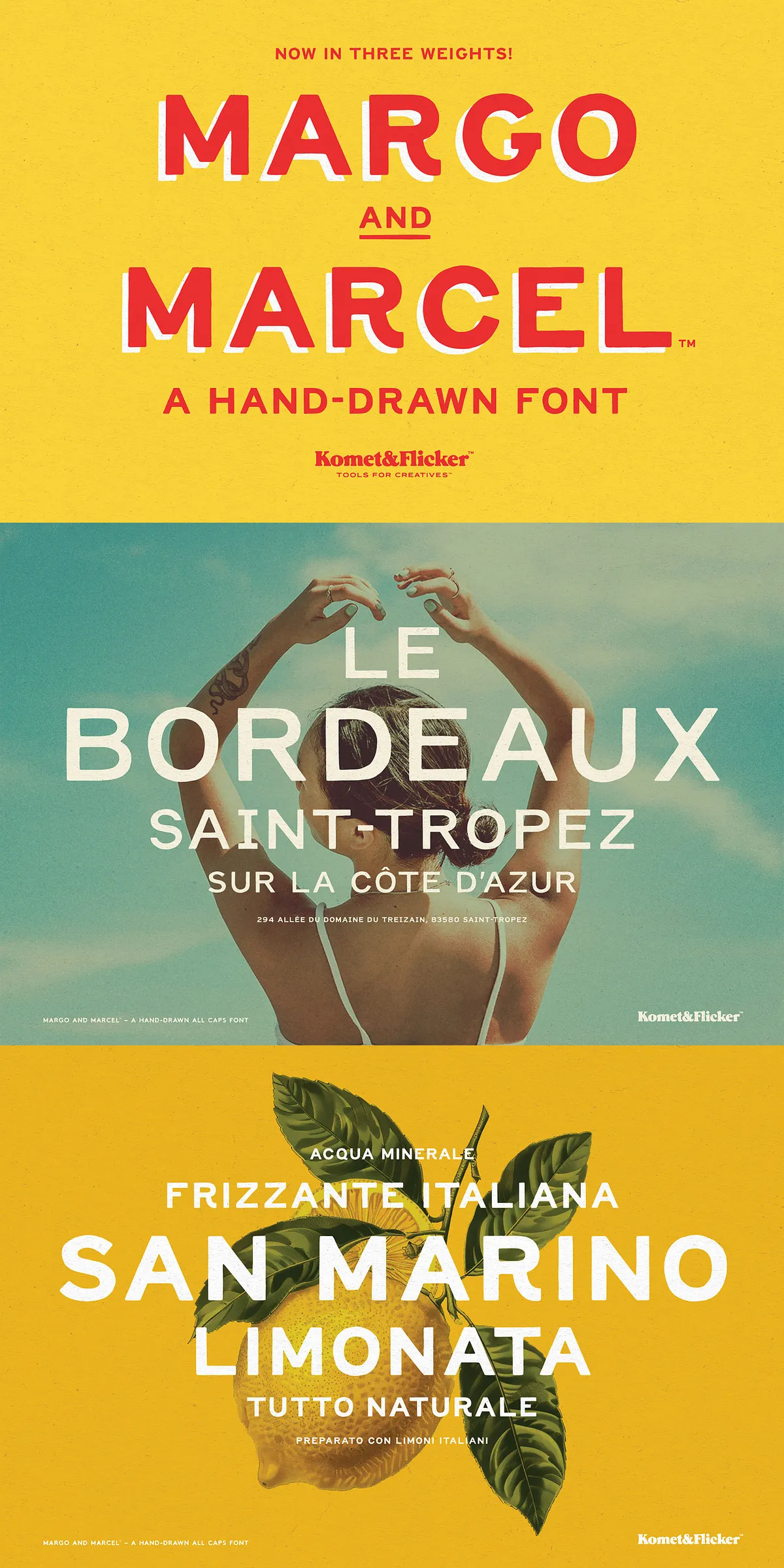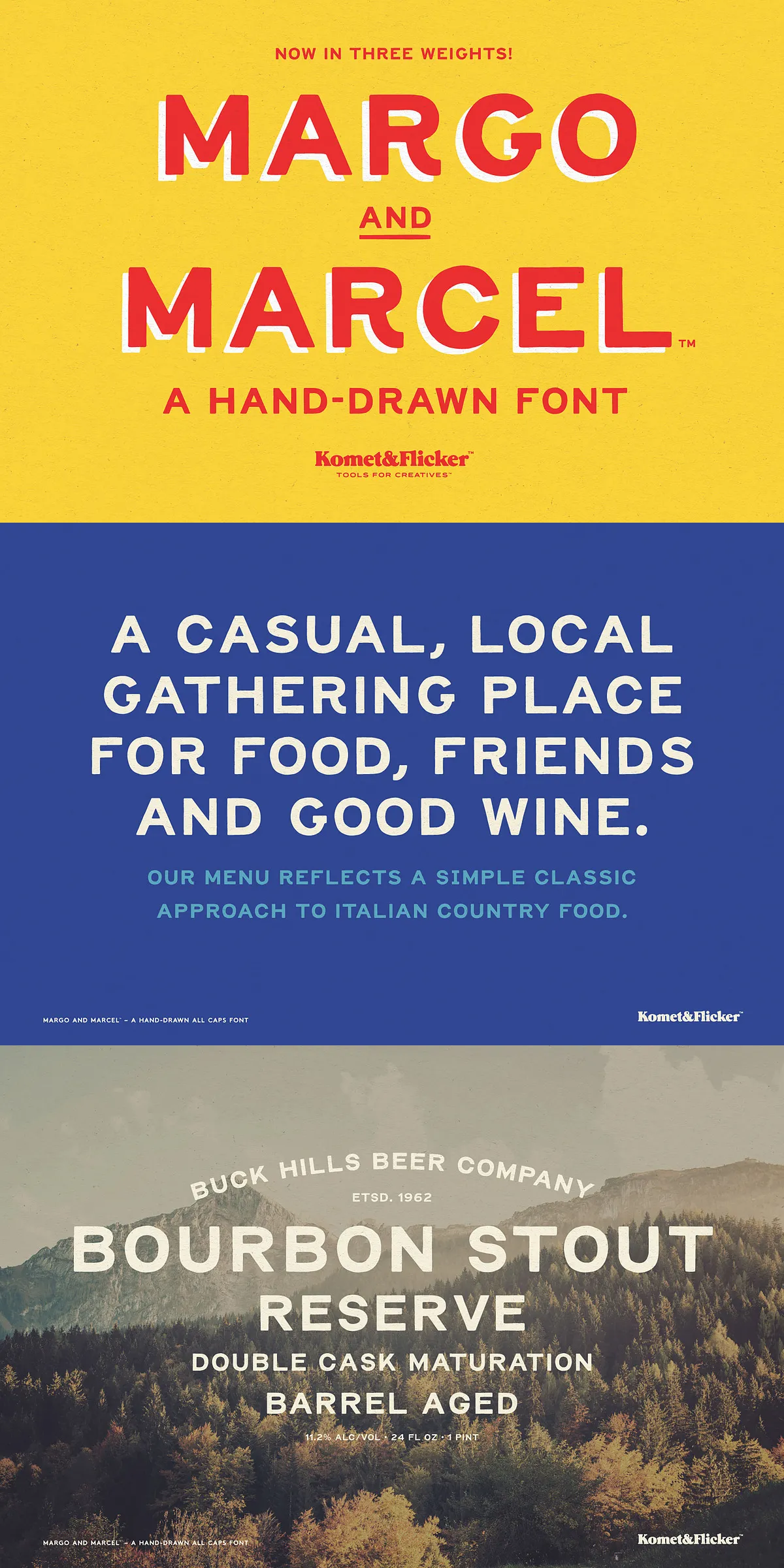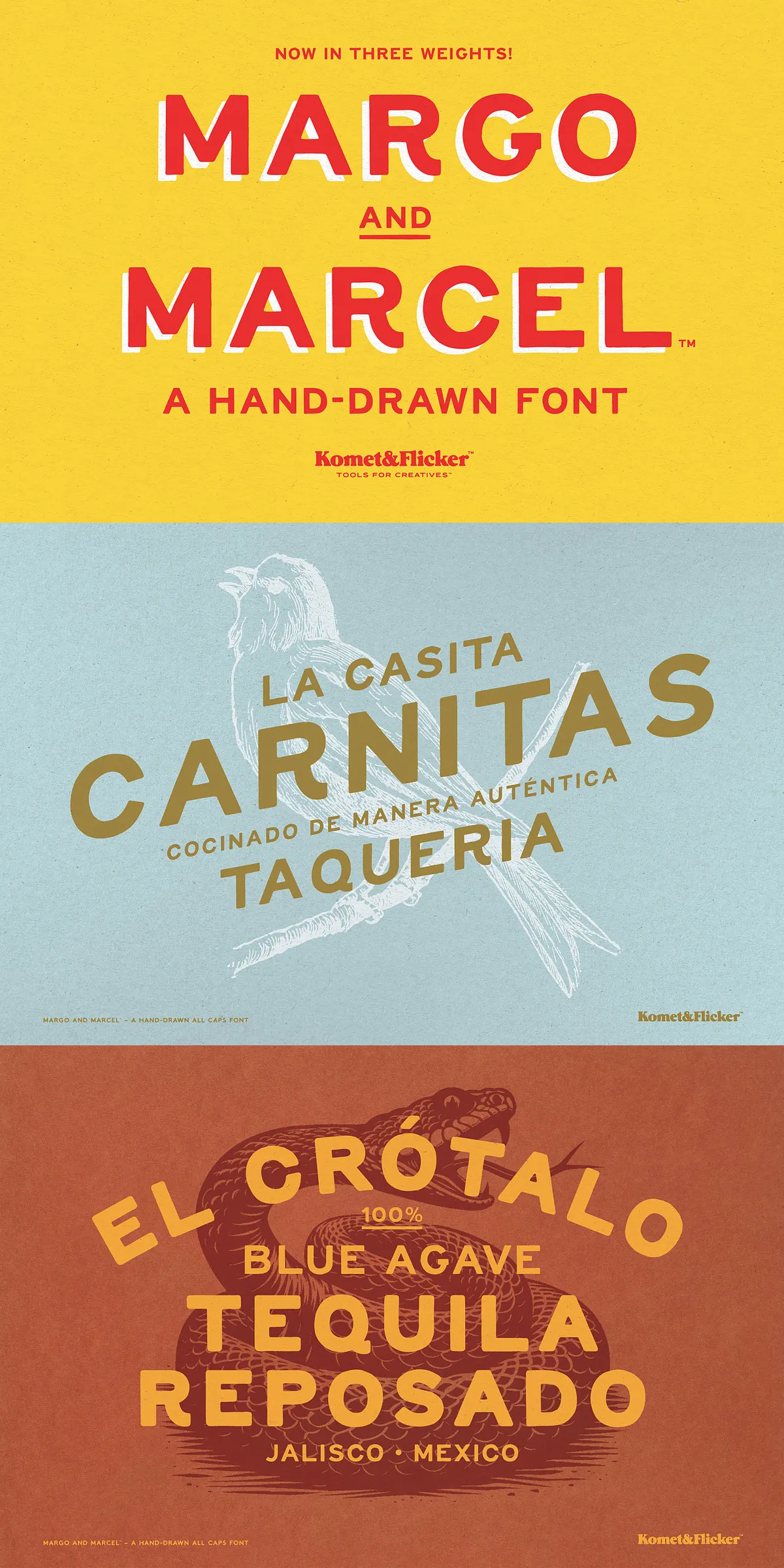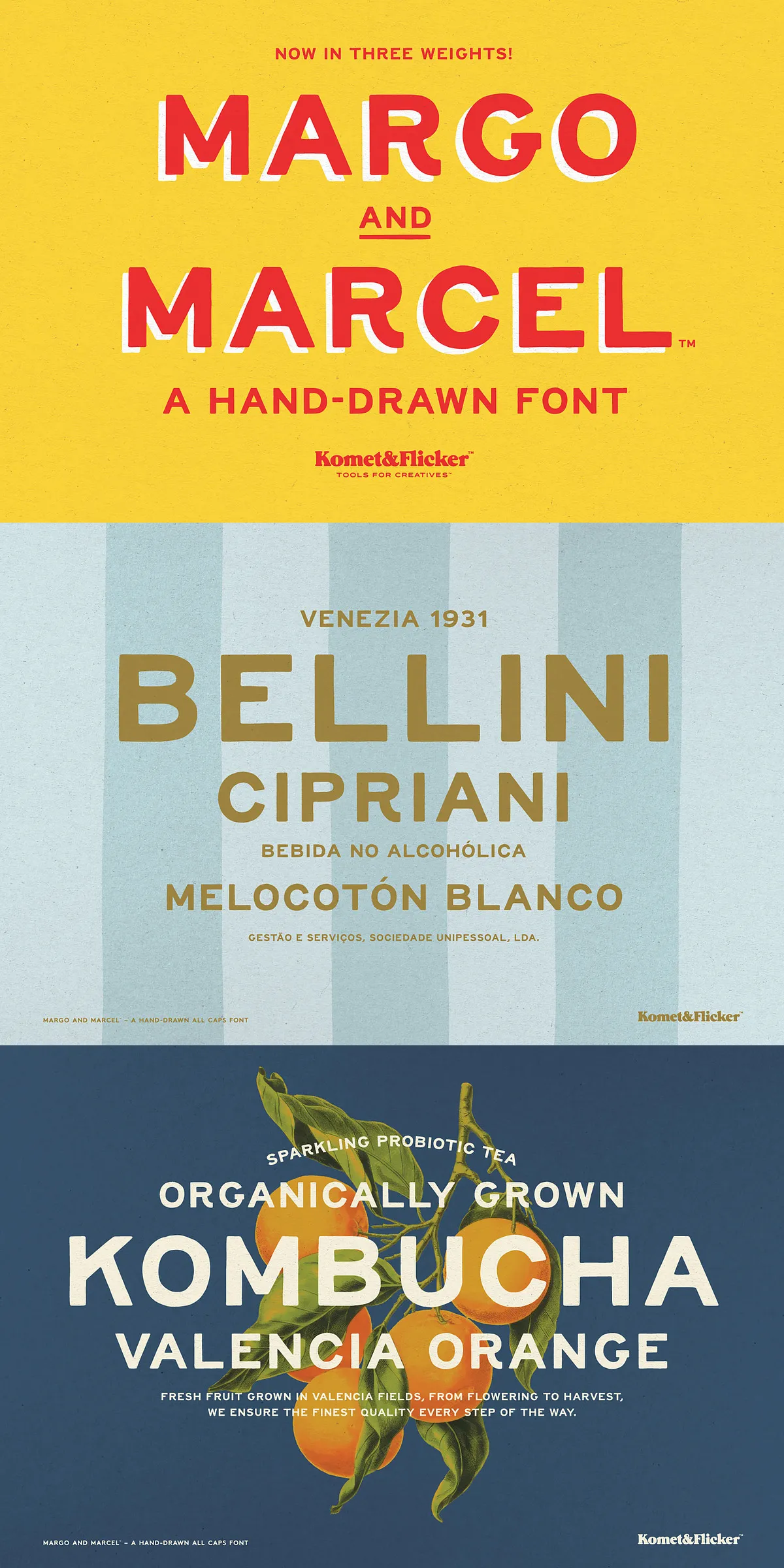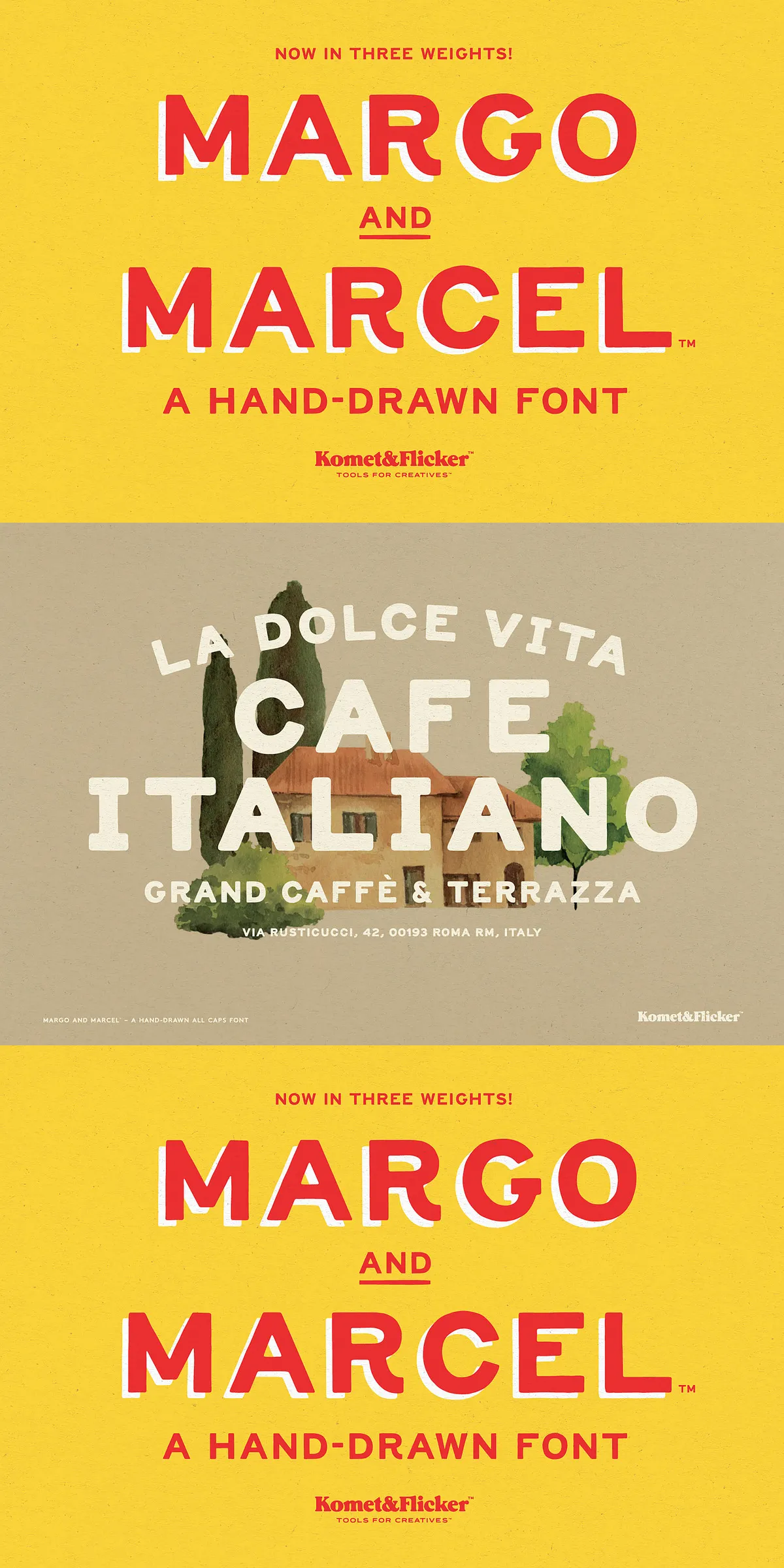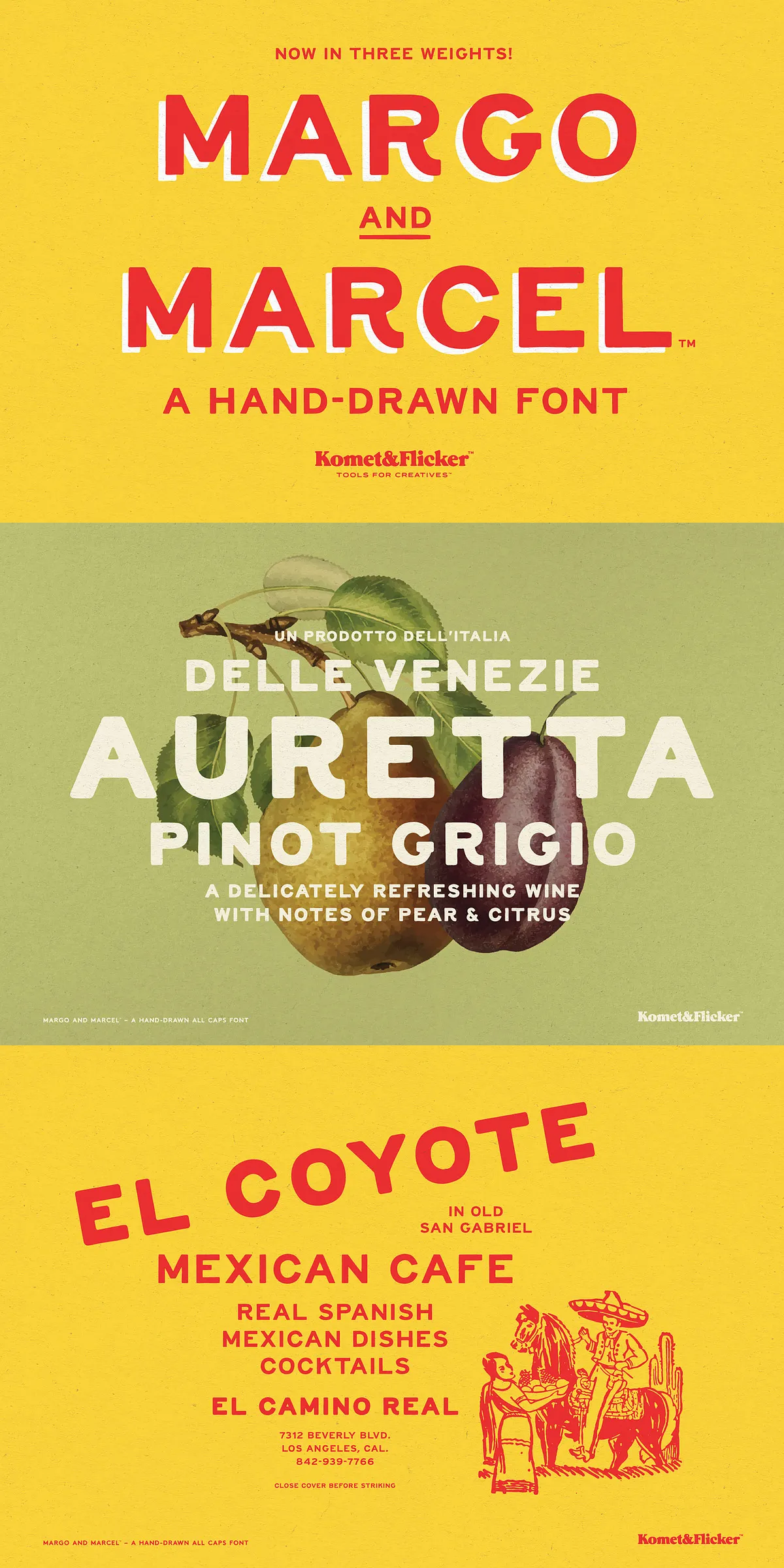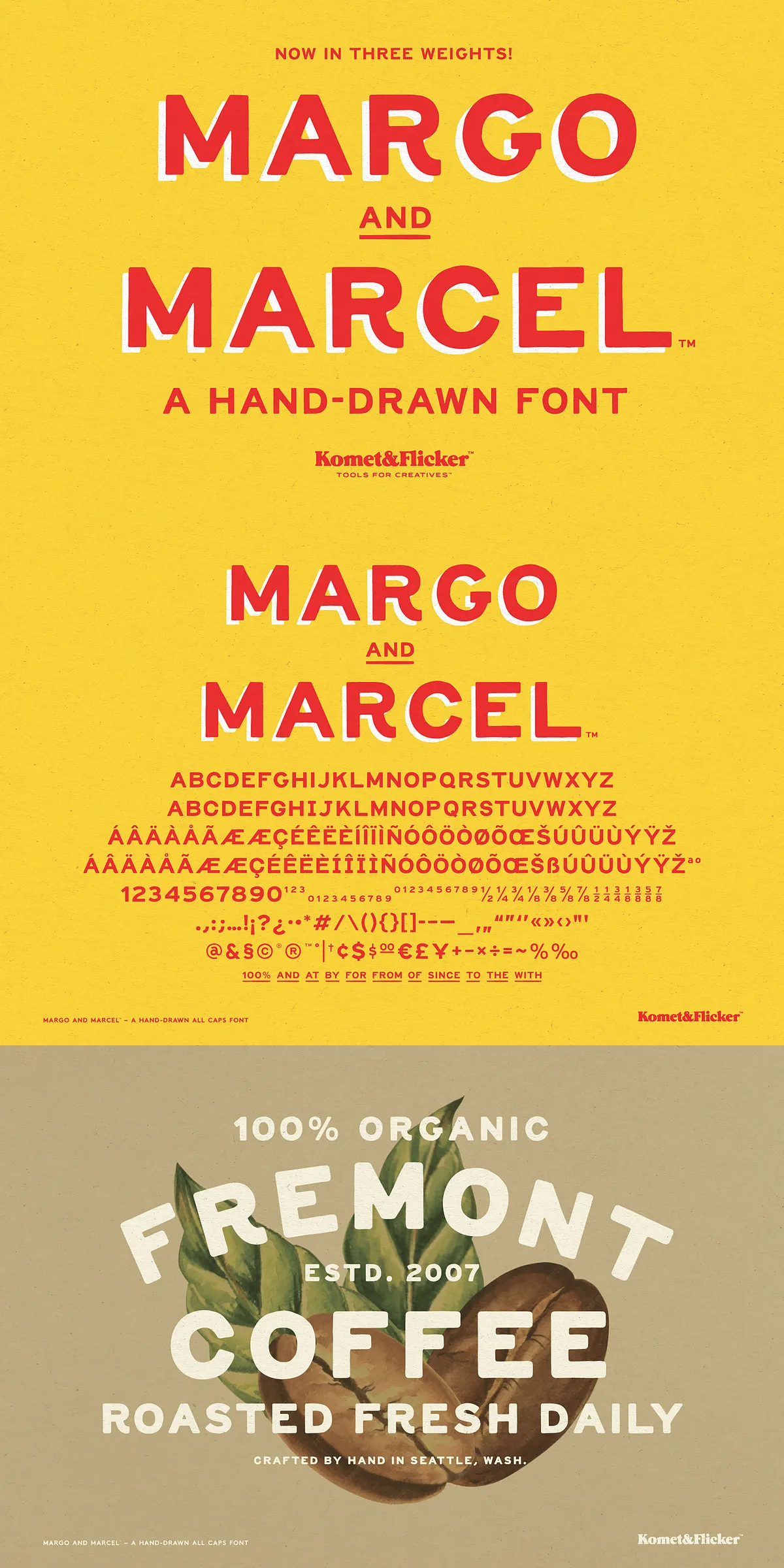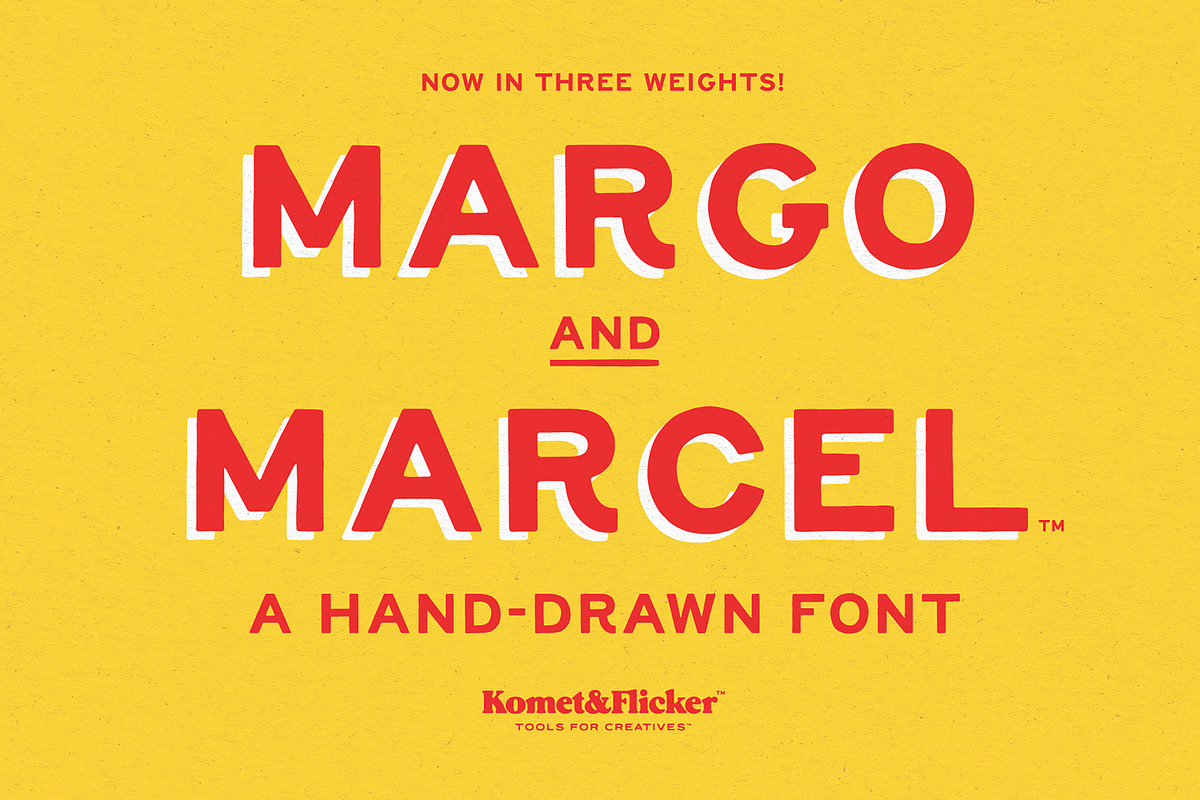
Step into the world of Margo and Marcel — a delightfully human, all caps font with a relaxed, down-to-earth charm that instantly warms up any design. This isn’t just a typeface — it’s an invitation to create with warmth, personality, and a touch of whimsy. Hand-drawn with care, every stroke carries subtle irregularities that give the font its unique, organic rhythm — like handwriting from a trusted friend.
Whether you’re building a casual brand identity, designing social media graphics, or crafting invitations with character, Margo and Marcel brings a sense of authenticity that digital fonts often lack. It’s the perfect blend of playful and polished — approachable enough for everyday use, but professional enough for high-impact projects.
Why Margo and Marcel Stands Out
Beyond its visual appeal, this font excels in versatility and thoughtful design. Here’s what makes it truly special:
- Hand-Drawn Imperfection: Each character was sketched by hand, resulting in slight natural variations in stroke weight and curve. This intentional “imperfection” gives your text warmth and a personal touch.
- Alternate Character Sets: For added visual flair, access alternate versions of key letters: C, E, G, I, J, K, Q, R, and S — perfect for creating dynamic headlines and avoiding visual repetition.
- 11 Custom Connecting Words: Include expressive glyphs like “AND”, “THE”, “WITH”, “FOR”, “FROM”, “LIKE”, “TO”, “OF”, “IN”, “BE”, and “BY” — hand-finished to blend seamlessly with the main font. These are not placeholders; they’re designed to elevate your text from functional to fascinating.
- Complete Character Set: Includes all uppercase A–Z, numbers, punctuation, symbols, and select European characters — ensuring broad compatibility for international use.
- Pre-Formatted Fractions: Comes with a set of 2–3 custom pre-made fractions (like ½, ¼, ¾), perfect for recipe cards, infographics, and editorial layouts.
Where Margo and Marcel Shines: Top Creative Applications
This font thrives in environments that value personality, clarity, and charm. Here’s where it delivers its best results:
Perfect For:
- Branding & Identity: Build a brand that feels personable, friendly, and trustworthy — ideal for lifestyle, wellness, coffee shops, or boutique businesses.
- Invitations & Stationery: Elevate wedding, baby shower, or birthday invites with handwritten-style elegance that feels sincere and memorable.
- Social Media Graphics: Stand out with bold, expressive captions that feel conversational and engaging — perfect for Instagram, Pinterest, and Facebook posts.
- Product Packaging & Labels: Add character to food packaging, handmade goods, candles, or cosmetics with labels that feel handmade and authentic.
- Web & UI Design: Use in headers, buttons, or callouts to create a warm, inviting tone in websites and apps.
- Editorial & Infographics: Break up text with expressive custom glyphs for key phrases, helping guide the reader with personality-driven design.
Make Every Word Feel Meaningful
Margo and Marcel isn’t just about aesthetics — it’s about emotion. It turns routine text into something that speaks, giggles, and connects. It’s for creators who believe design should feel alive, not sterile.